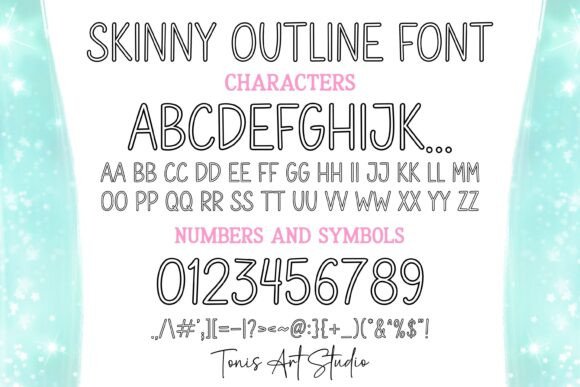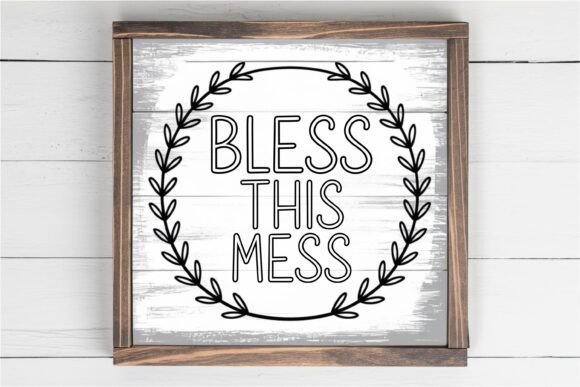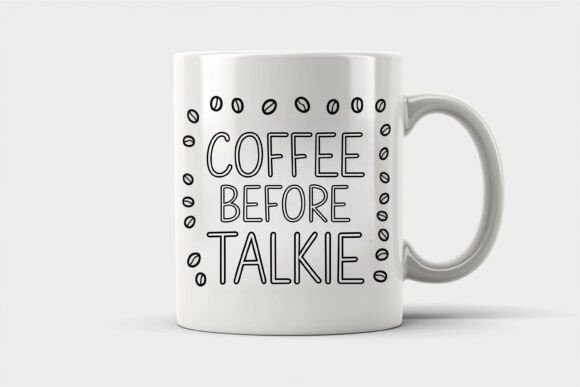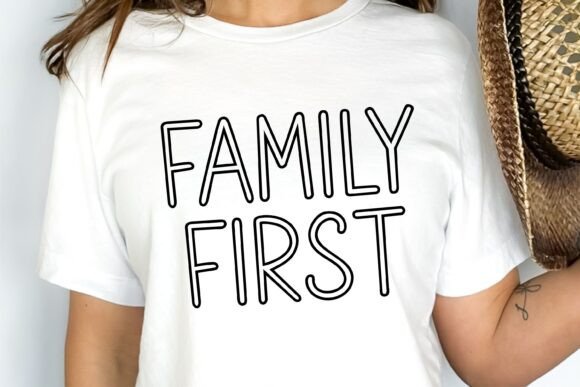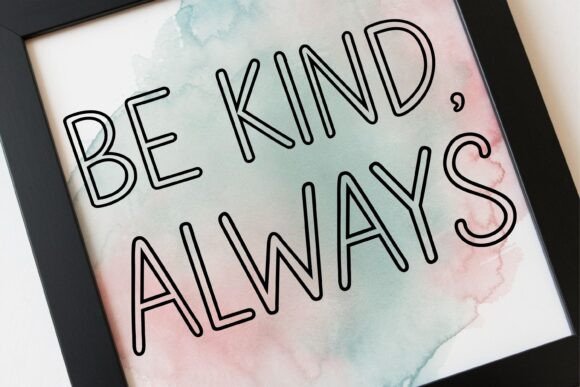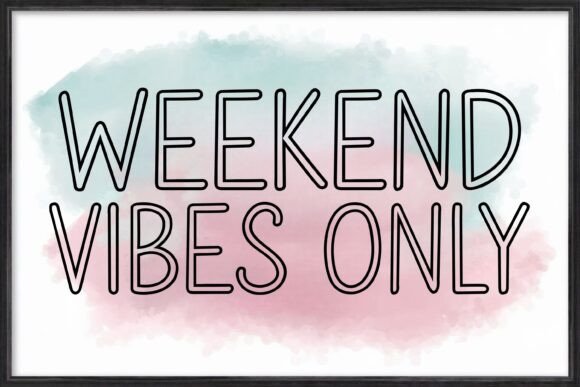
Introduction to Skinny Outline Font
As a designer, have you ever found yourself stuck in a creative rut, searching for that perfect font to elevate your project? The thrill of the hunt, scrolling through endless font libraries, is a familiar feeling for many of us. But what if you stumbled upon a font that not only sparks inspiration but also sets your project apart from the rest? Enter the Skinny Outline Font – a sweet and friendly handwritten font that’s about to become your new go-to design resource.
With its natural and unique style, the Skinny Outline Font is the perfect fit for a wide range of creative projects. Whether you’re working on a branding project, crafting a social media graphic, or designing a website, this high-quality font is sure to add a touch of personality to your work. And the best part? It’s available for free download, making it an accessible design resource for designers of all levels.
Key Features of Skinny Outline Font
- High-quality design: The Skinny Outline Font is designed to provide a sleek and modern aesthetic, making it perfect for creative projects.
- Transparent background: The Skinny Outline Font features a transparent background, allowing for easy customization and layering.
- Design resource: This font is a versatile design resource that can be used for a variety of creative projects, including logos, branding, and graphics.
- Unique characteristics: The Skinny Outline Font features a distinctive outline design, with bold lines and a modern aesthetic that sets it apart from other fonts.
Honest Review: Skinny Outline Font
I recently had the chance to work with the Skinny Outline Font, and I must say it’s a great addition to any design resource. With a high quality and free download option, this font is perfect for any creative project that requires a touch of elegance and sophistication.
One of the standout features of this font is its transparent background, which makes it incredibly versatile and easy to work with. I love how it can be used to create beautiful designs with a sense of depth and dimension.
- High quality and crisp design
- Easy to use and customize
- Transparent background for added versatility
- May not be suitable for text-heavy designs
- Can be a bit difficult to read at very small sizes
- Not as comprehensive as some other font families
Overall, I’m really impressed with the Skinny Outline Font. It’s a great design resource that can add a touch of sophistication to any creative project. While it may have a few limitations, I think it’s well worth the download, especially considering it’s free!
Common Use Cases for Skinny Outline Font
The Skinny Outline Font is ideal for various design projects, including infographics, posters, and social media graphics. You can also use it for branding and marketing materials, such as business cards and brochures.